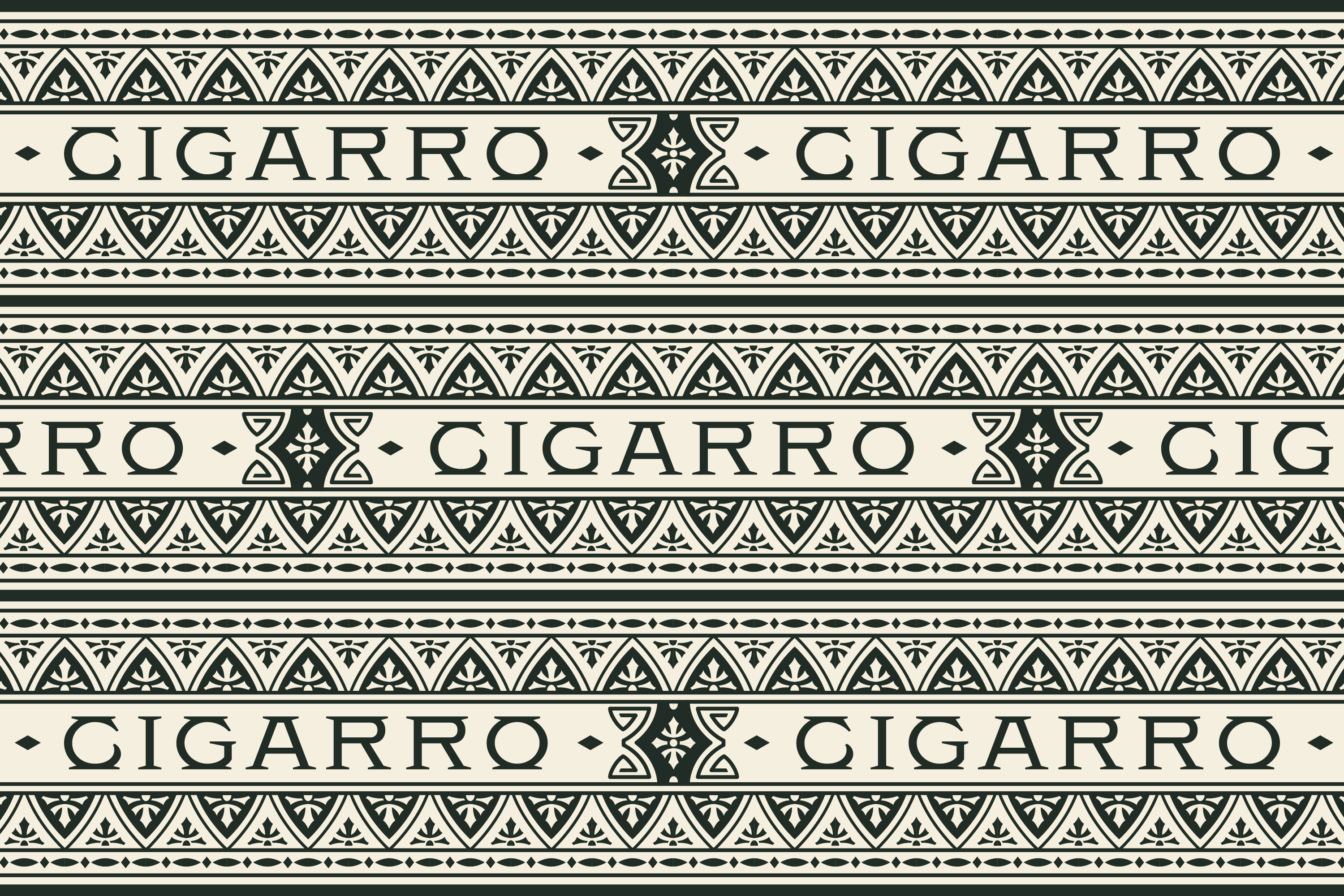
Cigarro - Display Typeface
Cigarro was designed to take us back to the 1800s; a time where there was an abundance of beautiful warranty seals and box burns that so often accompanied cigars.
The type was designed to be a supporting or secondary font, but can serve a variety of purposes. Cigarro is an all caps, OTF display font, for commercial and personal use.
Font Key Features:
- Single Weight
- All Caps